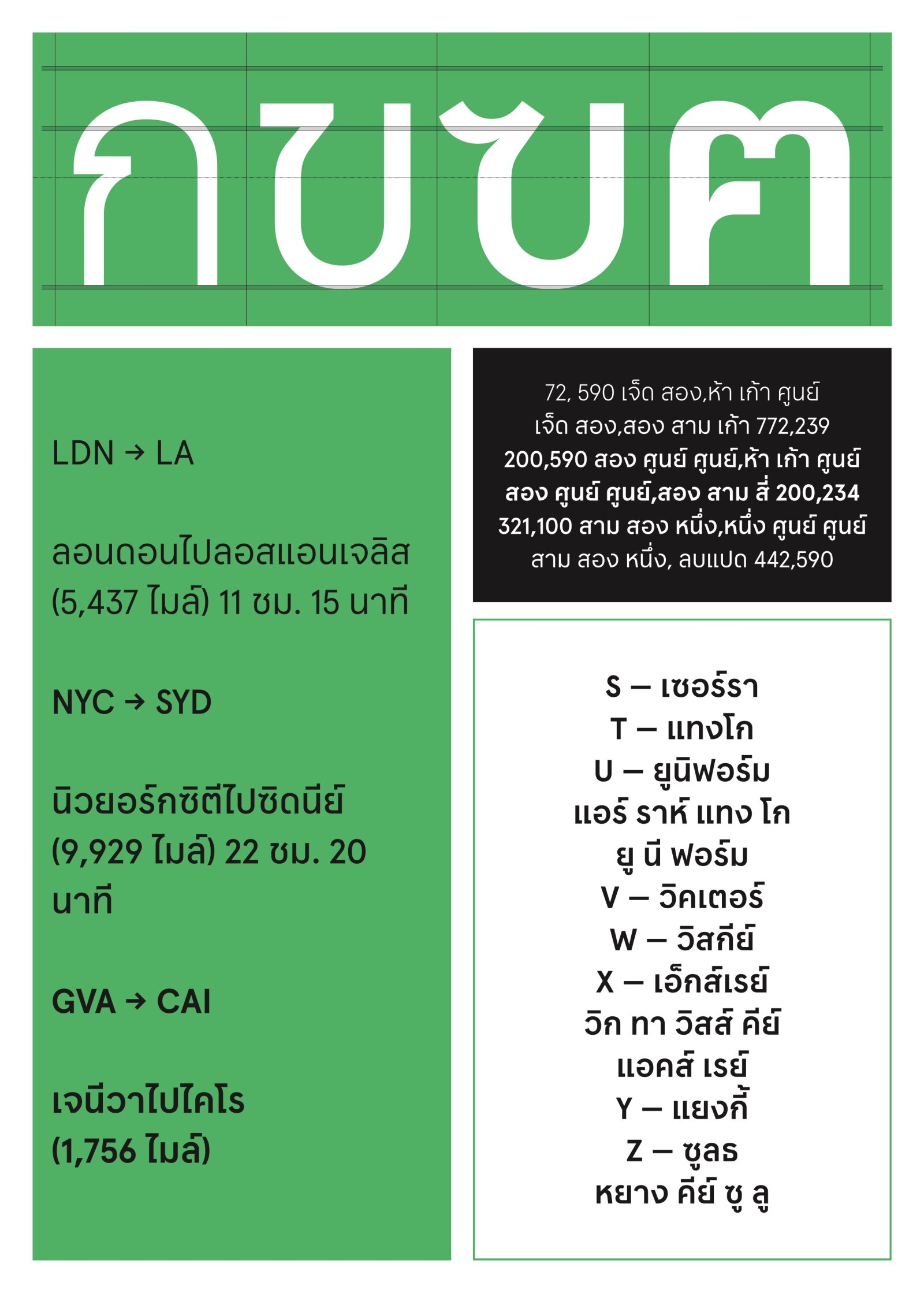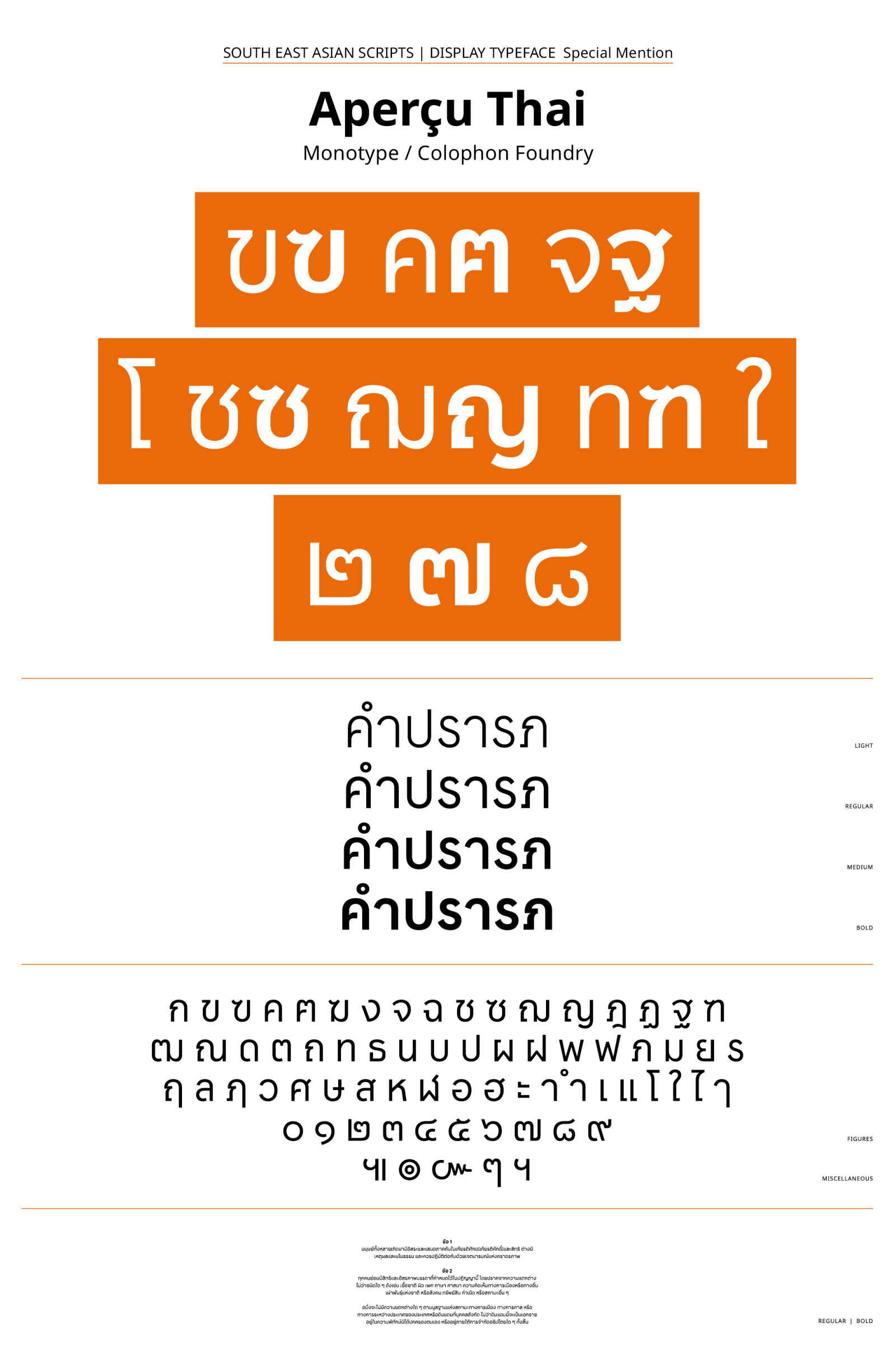
Aperçu Thai
by Monotype Studio, Colophon Foundry
This design draws inspiration from traditional Thai loopless typefaces, which is a commendable approach. While it explores geometric proportions, some width decisions might benefit from further refinement. Overall, it’s an interesting attempt on Loopless design.
A modern Thai loopless style based on geometric shapes with a slight calligraphic influence drawn from its Latin counterpart. While the overall design is regulated by geometric shapes, individual letterforms still contain nuances that add a contemporary flavor.